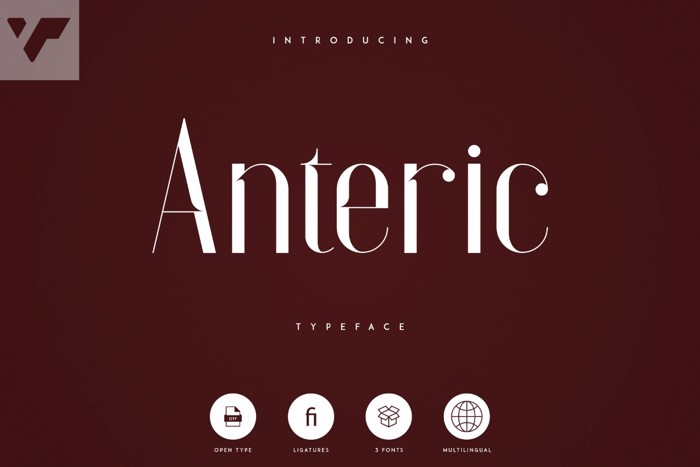
Anteric Font
Anteric is vintage, elegant font with 3 weights, ligatures, and multilingual support. It's a very versatile font that works great in large and small sizes.